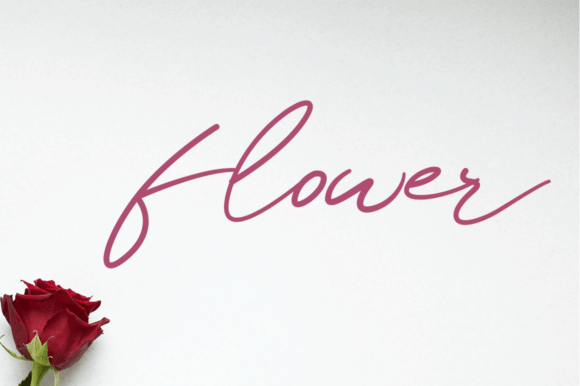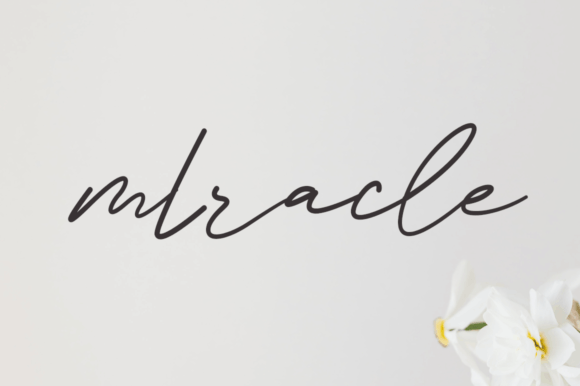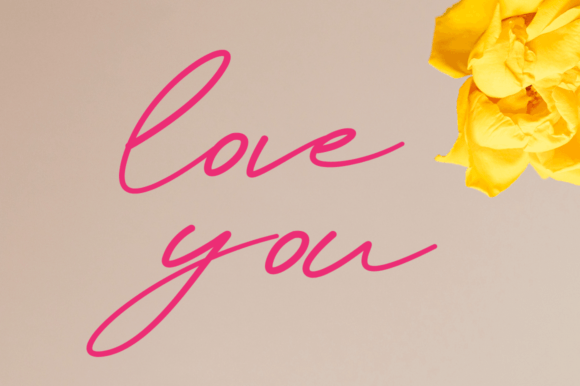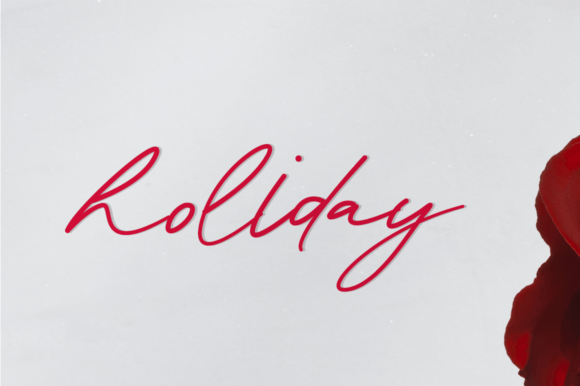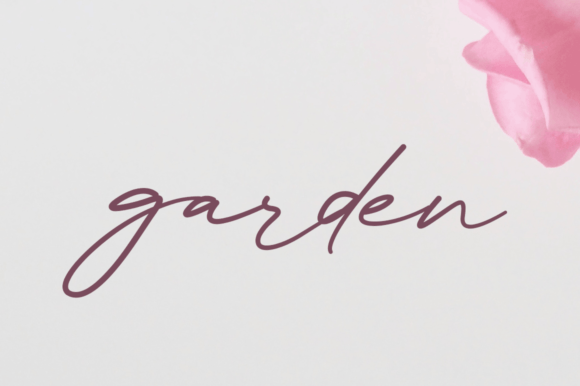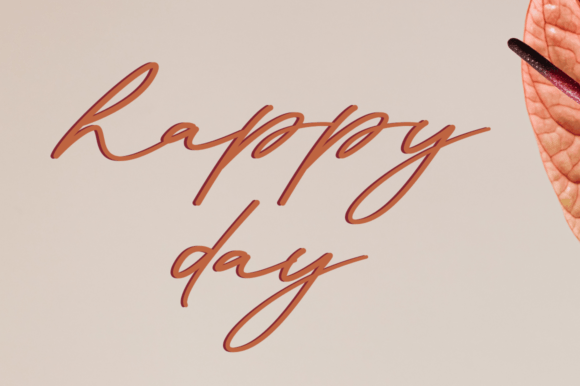
Introduction to Love One Font
Have you ever found yourself sitting at your desk, staring blankly at a blank canvas, waiting for inspiration to strike? For designers, this moment is all too familiar. It’s the moment when a spark of creativity is just out of reach, and the only thing that can reignite it is the perfect design element. For me, that element was the Love One Font.
As a free download, the Love One Font has become a go-to design resource for creative projects of all kinds. Its delicate, elegant, and flowing handwritten characters make it a versatile choice that matches a wide pool of designs. With its high-quality aesthetic and transparent background, it’s no wonder that designers are flocking to this beautiful font. Whether you’re working on a personal project or a professional one, the Love One Font is a valuable asset that can elevate your design and take it to the next level.
Key Features of Love One Font
- Unique, modern font with a transparent background for seamless integration
- Designed with a clean and minimalist aesthetic for versatility in design
Honest Review: Love One Font
I recently stumbled upon the Love One Font and was eager to give it a try for my latest design project. As a designer, I’m always on the lookout for high-quality fonts that can elevate my creative work. And I’m happy to report that Love One Font did not disappoint.
- High-quality typography with smooth lines and crisp edges.
- Perfect for creating a modern and elegant look in my design project.
- The font may not be suitable for projects that require a lot of bold or dramatic text.
- The Love One Font is a relatively simple font, which may limit its use in more complex design projects.
Overall, I’m very impressed with the Love One Font. It’s a versatile and high-quality design resource that I’ll definitely be using again in the future. The free download makes it a must-have for any designer, and the transparent background makes it easy to work with.
Common Use Cases and Tips
Love One Font is perfect for creating high-quality designs for social media, presentations, and flyers. For the best results, use the font with a transparent background to create a clean and modern look.
Additionally, consider using Love One Font with other design elements, such as images and graphics, to create a visually appealing design.